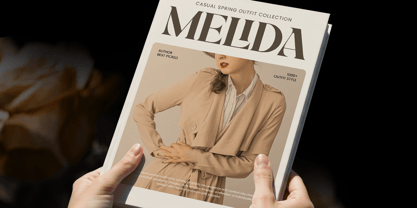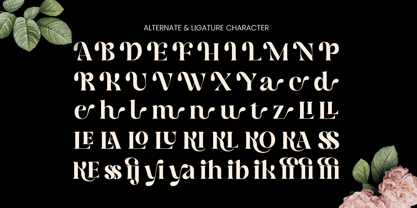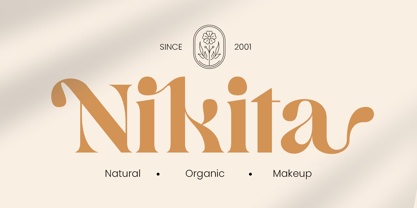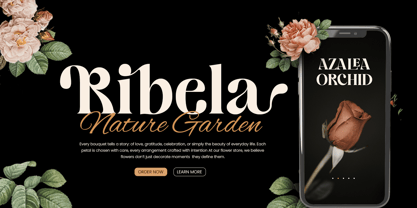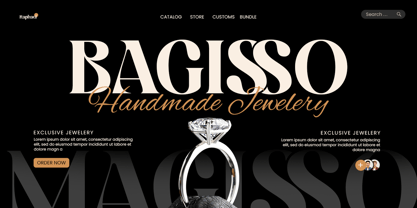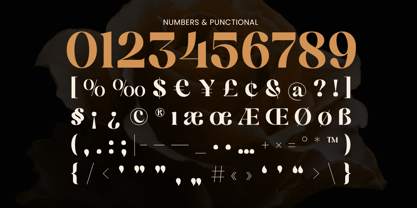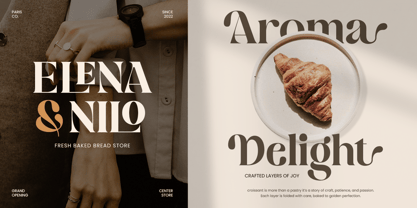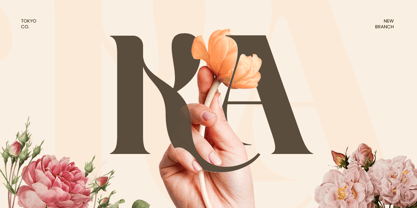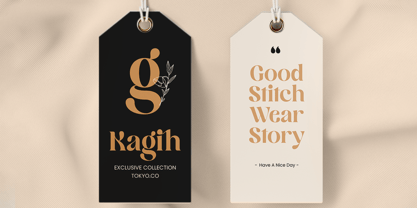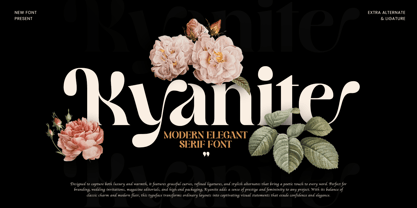
Kyanite is a modern elegant serif font crafted to deliver a refined, polished look with timeless appeal. With balanced proportions and graceful serif details, this typeface creates a sophisticated mood that feels premium, confident, and beautifully modern.
Perfect for branding, logos, editorial headlines, fashion campaigns, beauty packaging, wedding stationery, and upscale marketing materials, Kyanite elevates everything from magazine covers and product labels to website headers, social media graphics, and print layouts. Its elegant structure helps your typography feel clean and luxurious without losing readability.
Whether you’re building a boutique identity, a premium product line, or a classy editorial layout, Kyanite brings a modern serif voice that makes every word feel intentional and elevated.
Kyanite – Modern Elegant Serif Features
Modern serif letterforms with elegant, refined character
Ideal for branding, logos, editorial, and premium layouts
Perfect for fashion, beauty, wedding, and boutique design
Strong readability with classy high-end presence
Includes uppercase, lowercase, numerals, and punctuation
Designed for sharp results in digital and print projects
OpenType features for polished typography control
Bring refined elegance to your brand with Kyanite, crafted for modern serif beauty and timeless impact. ✨